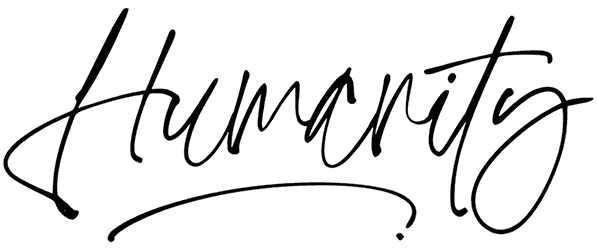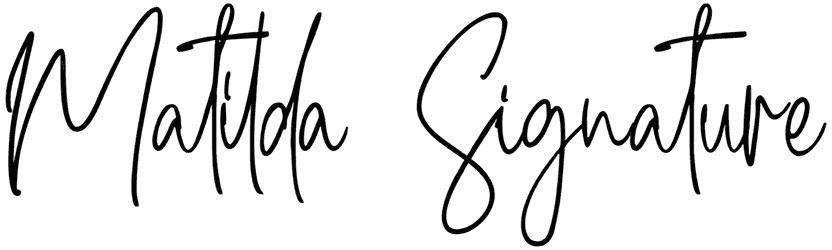
Matilda Signature Font
This time, let’s present your creative design with a casual and stylish face and make an impression on your audience. This calligraphy font, which is called Matilda Signature, has a twisty and slime pen-lettered form. With full characters, this signature font can be harmonized with various modern or classic projects from logotypes to postcards.